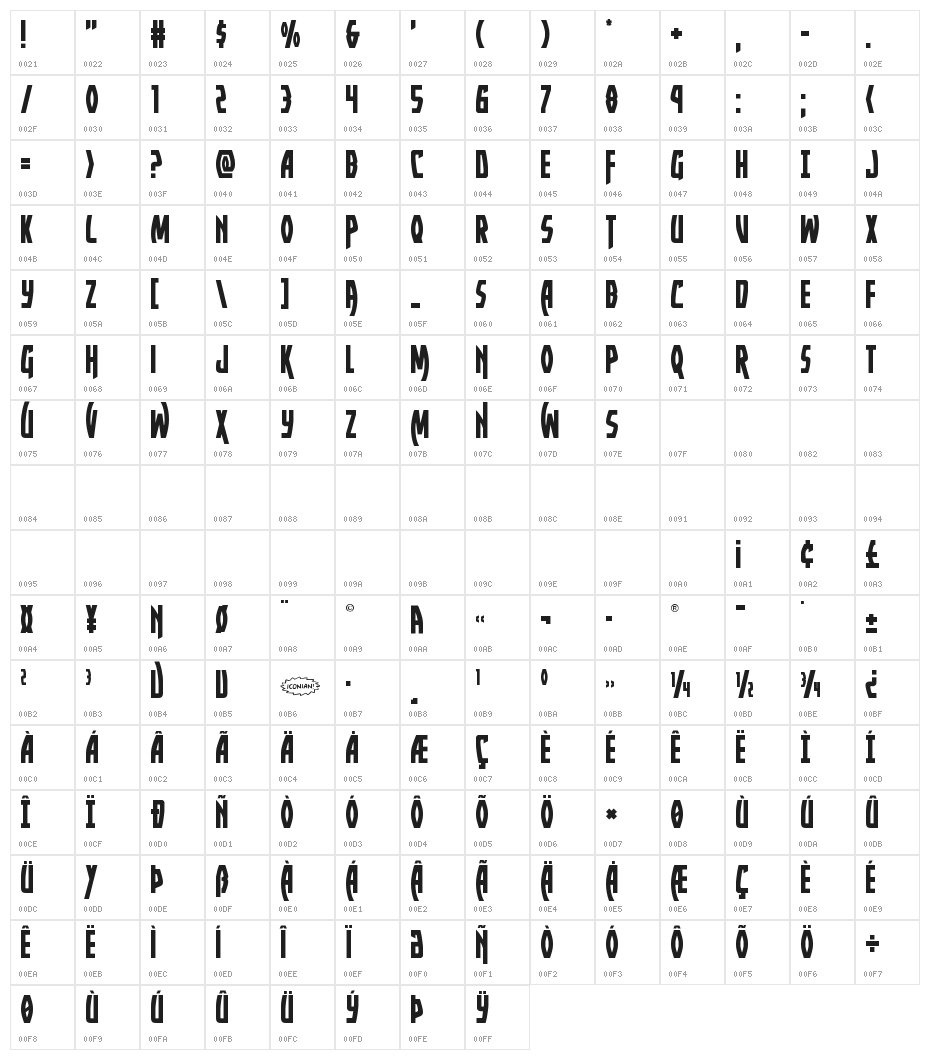
Yankee Clipper Font
Yankee Clipper Description
This font features a bold and dynamic style with sharp, angular edges and a strong presence. The uppercase letters are particularly striking, with a geometric design that conveys a sense of movement and energy. The lowercase letters maintain the same boldness, ensuring consistency throughout. Numbers and special characters are equally robust, making them stand out in any design. The overall look is modern and eye-catching, suitable for projects that require a strong visual impact.